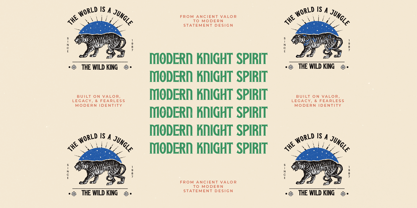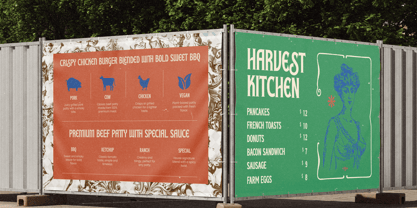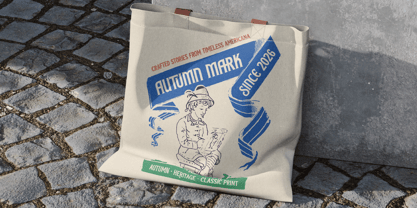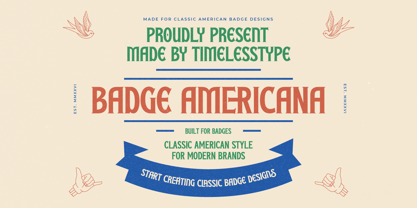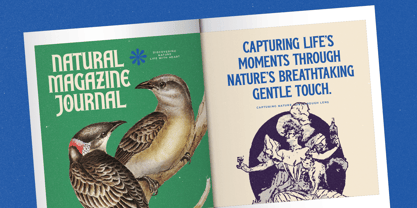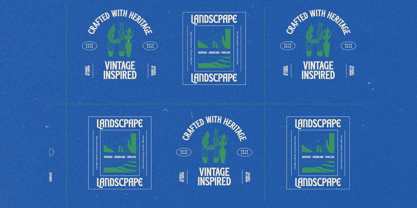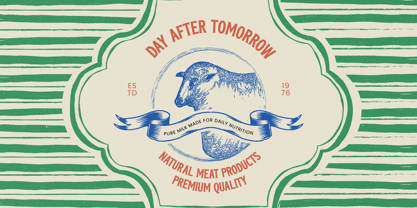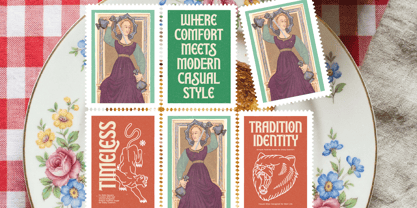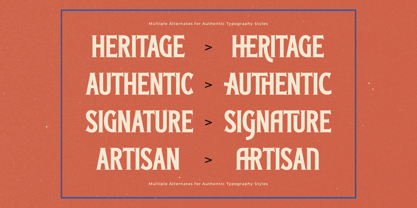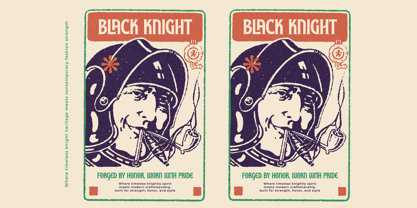
Badge Americana
by Timelesstype Studio
The Badge Americana Font Family was designed by Heru Utama Putra and published by Timelesstype Studio. Badge Americana contains 2 styles and family package options. More about this family
Badge Americana - Vintage Serif Display , Badge Americana is a classic American-style display typeface designed for badge-making, vintage branding, and heritage-inspired visual identities. Its structured letterforms, strong vertical rhythm, and retro Americana personality make it an ideal choice for logos, packaging, merchandise, editorial layouts, and signage that demand authenticity and timeless craftsmanship. Built with modern precision, it blends traditional American design cues with contemporary versatility, allowing designers to create bold, confident, and nostalgic visuals that stand out across digital and printed media.